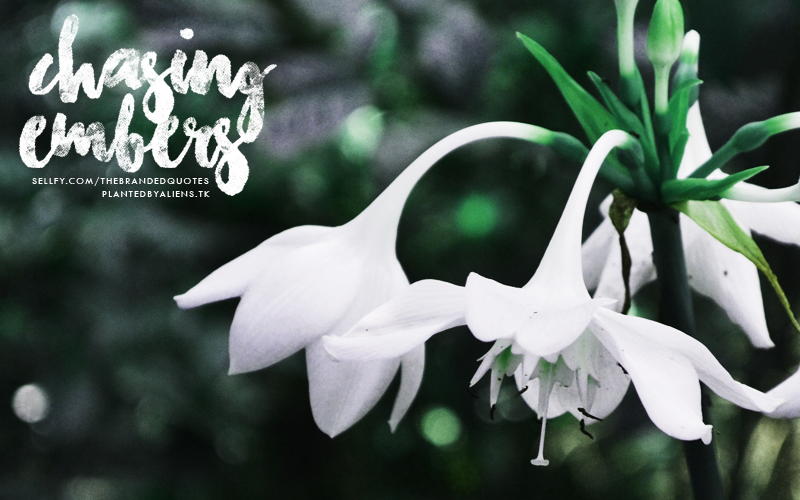
Preview and download Chasing Embers Font. Created by The Branded Quotes in Script Various styles with Demo license.
Personal and Non-Profit Use Only. Purchase the Licensed Version here: https://sellfy.com/p/YdR6/ Which includes the Capitals, Numerals and some Punctuations. Available in OpenType and TrueType files. About this font: A Typeface that has ink/watercolor texture of its own. No need to overlay anything, just throw it over your photographs and projects! This font is a camouflage to whatever background you lay under it. Have fun! Note: Try typing the underscore symbol, it's a bonus! |